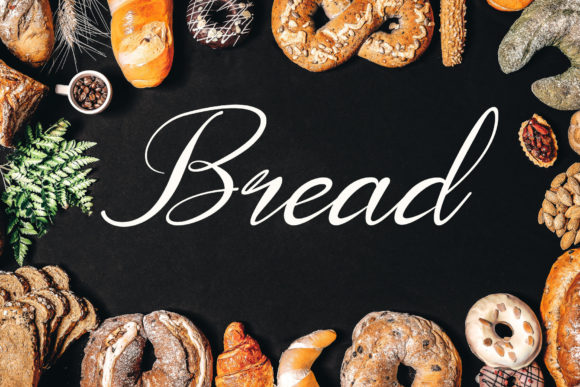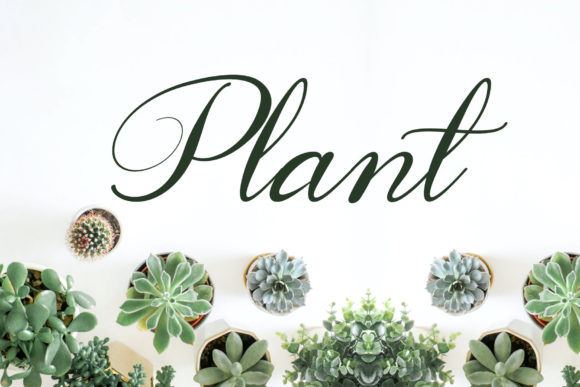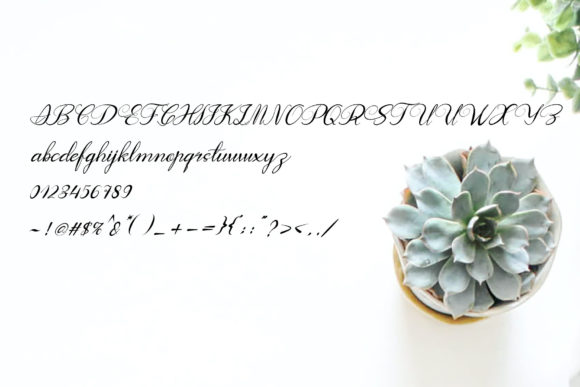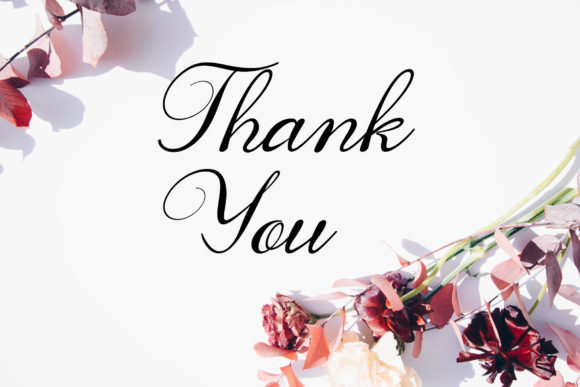
Fast Coffee Font
About Fast Coffee Font
Fast Coffee is a well-balanced and delicate script font that exudes elegance and class. This font was particularly crafted for those who need a beautiful and refreshing look to their designs.